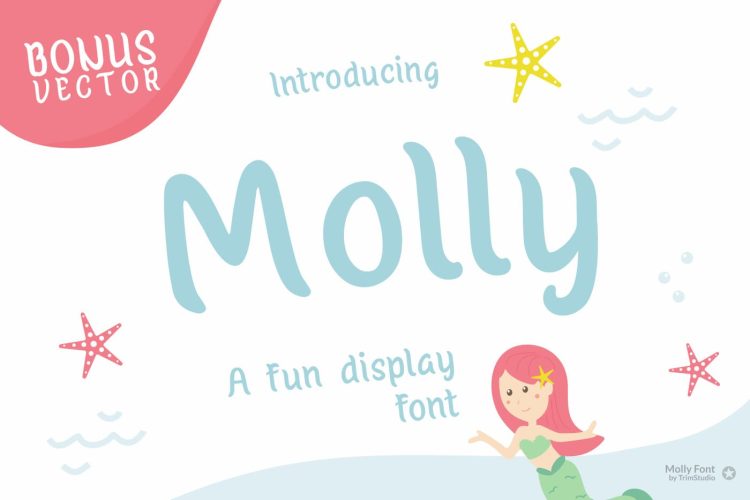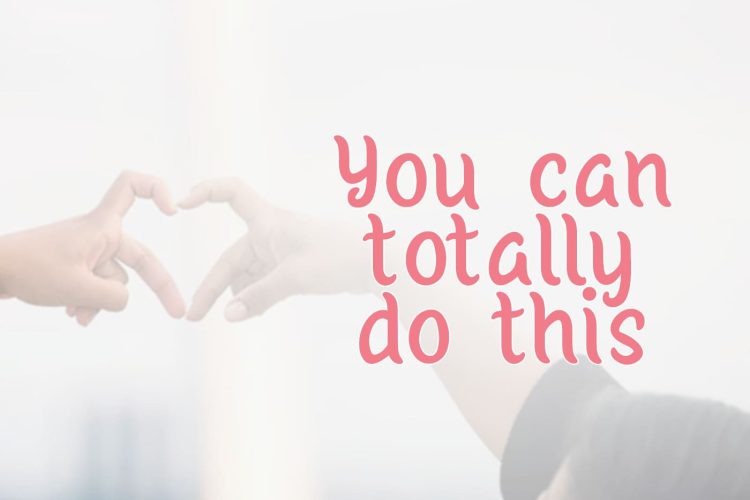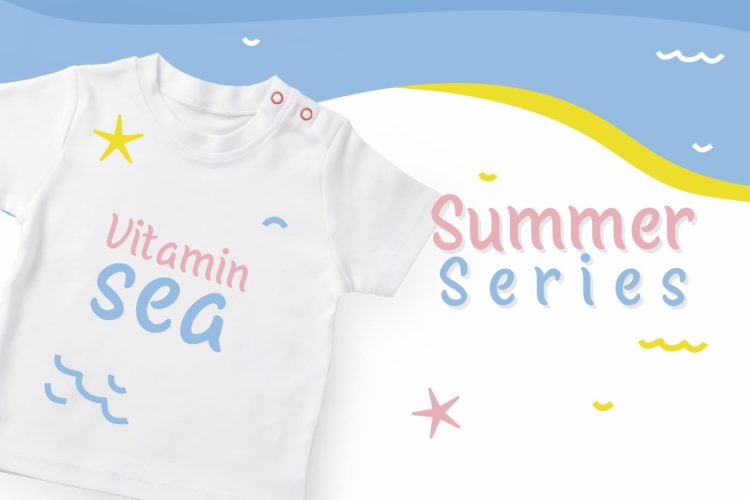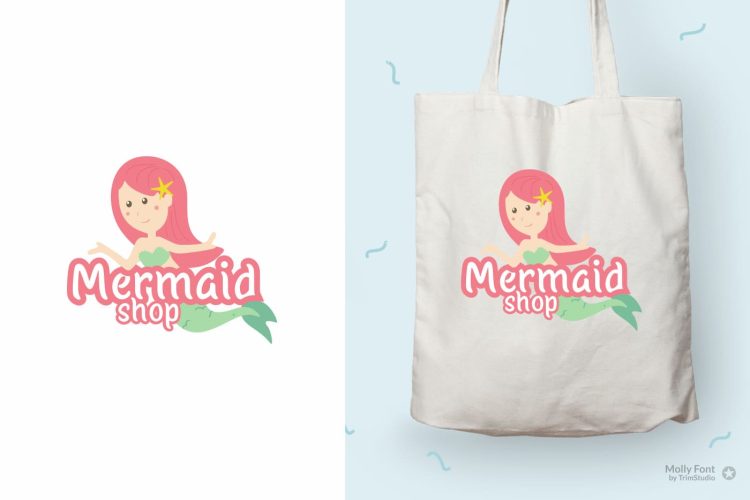
Molly is a playful mermaid-themed font with a cheerful vibe, perfect for various design projects. It brings a fun and joyful feel to your work, and is well-suited for branding, toy stores, pet shops, invitation cards, t-shirts, bags, and many more!